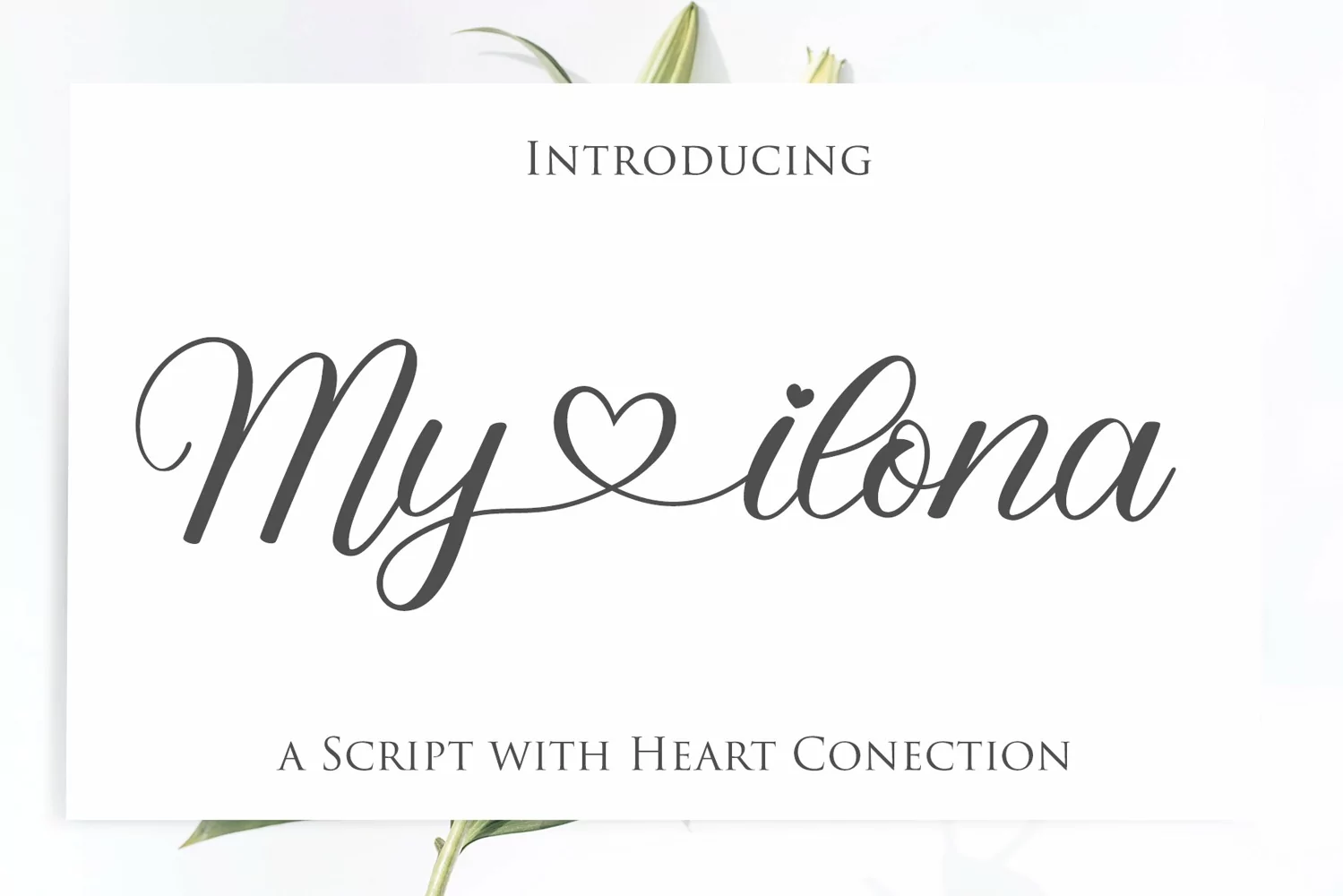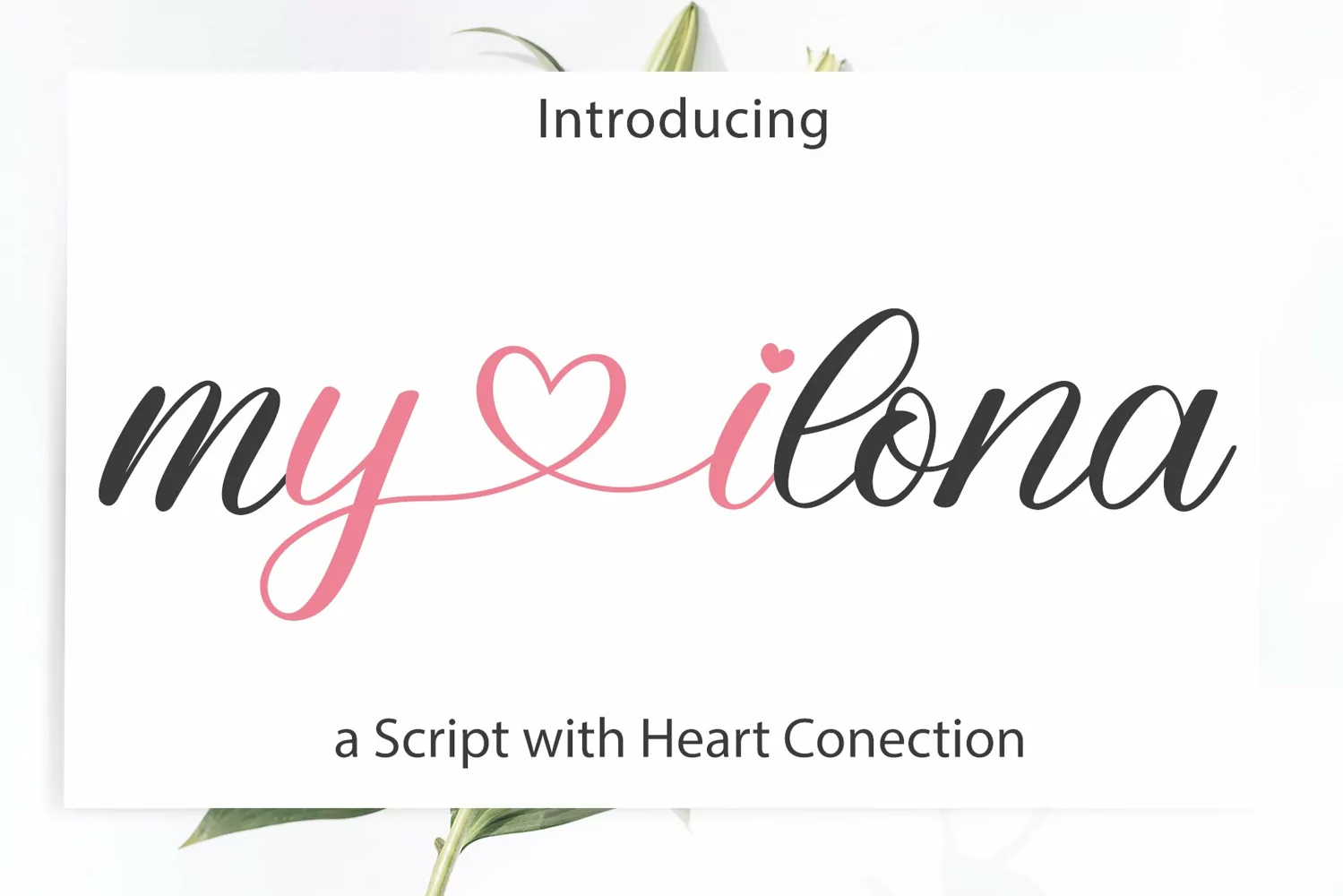
My Ilona is a romantic and sweet calligraphy typeface with characters that dance along the baseline. It will add a luxury spark to any design project that you wish to create! This font is PUA encoded which means you can access all of the amazing glyphs and ligatures with ease!